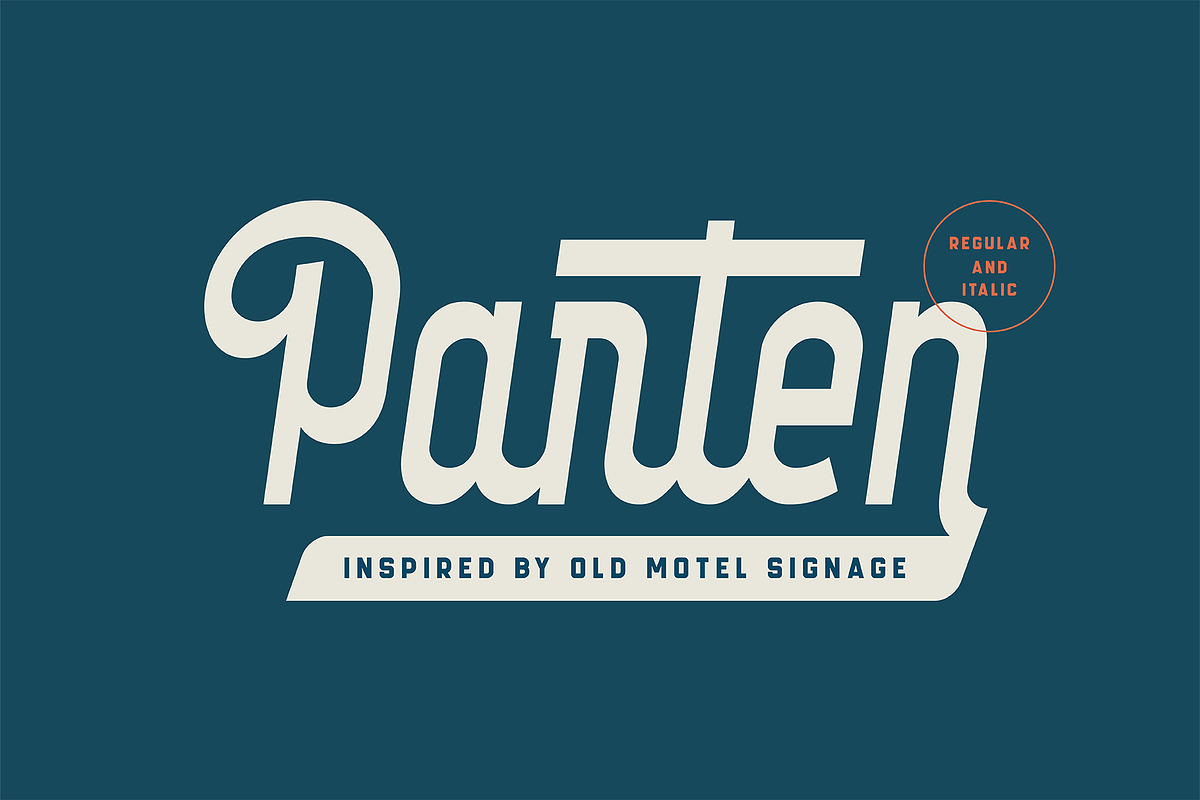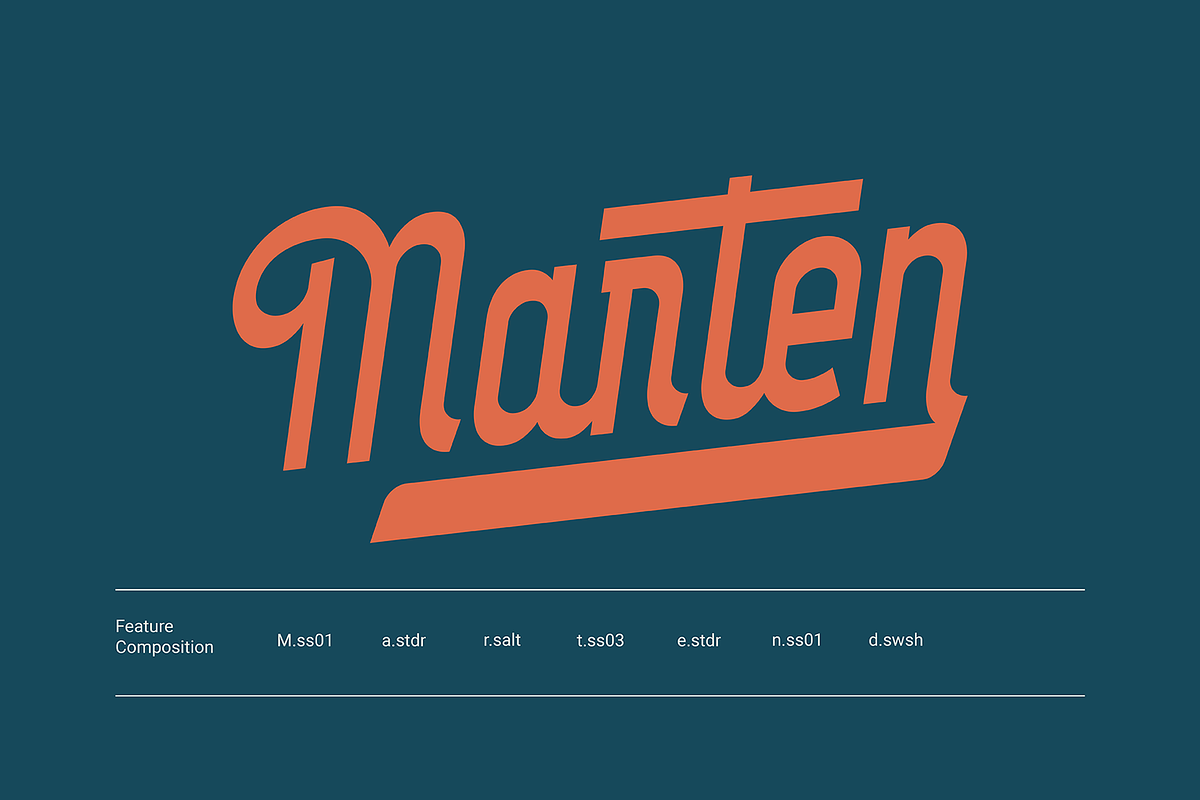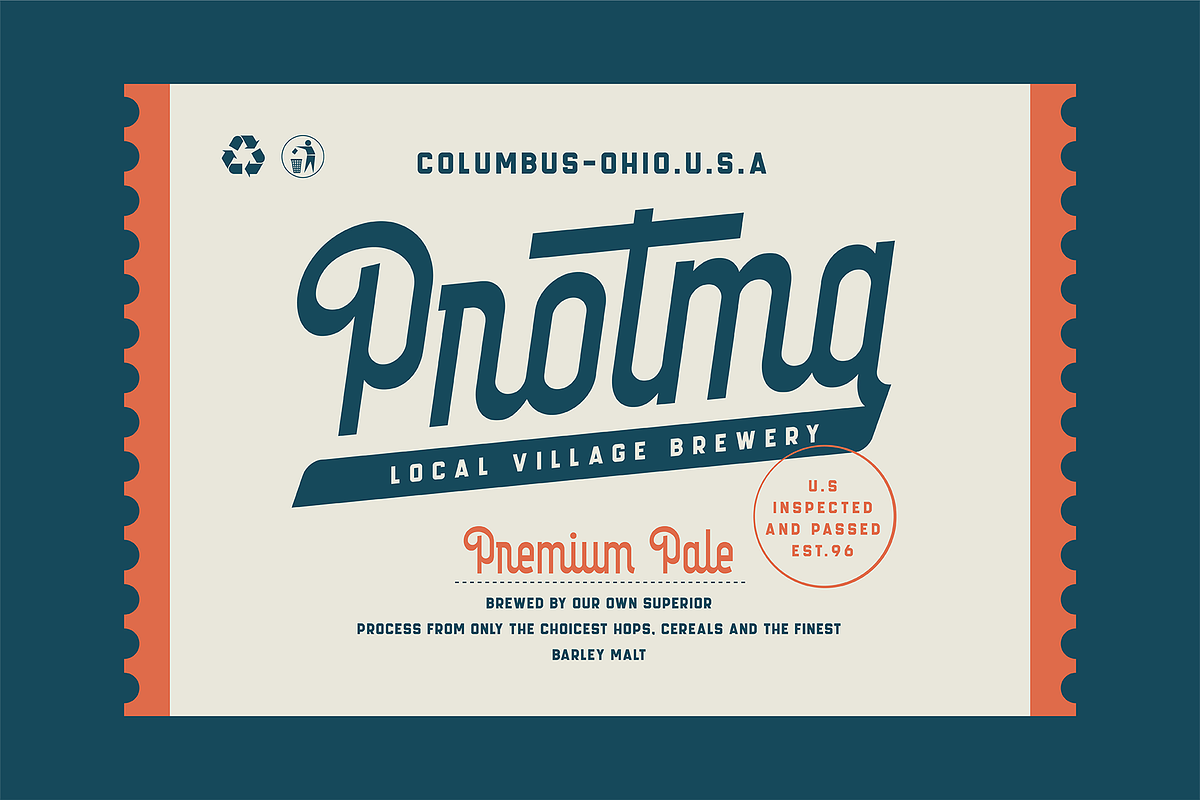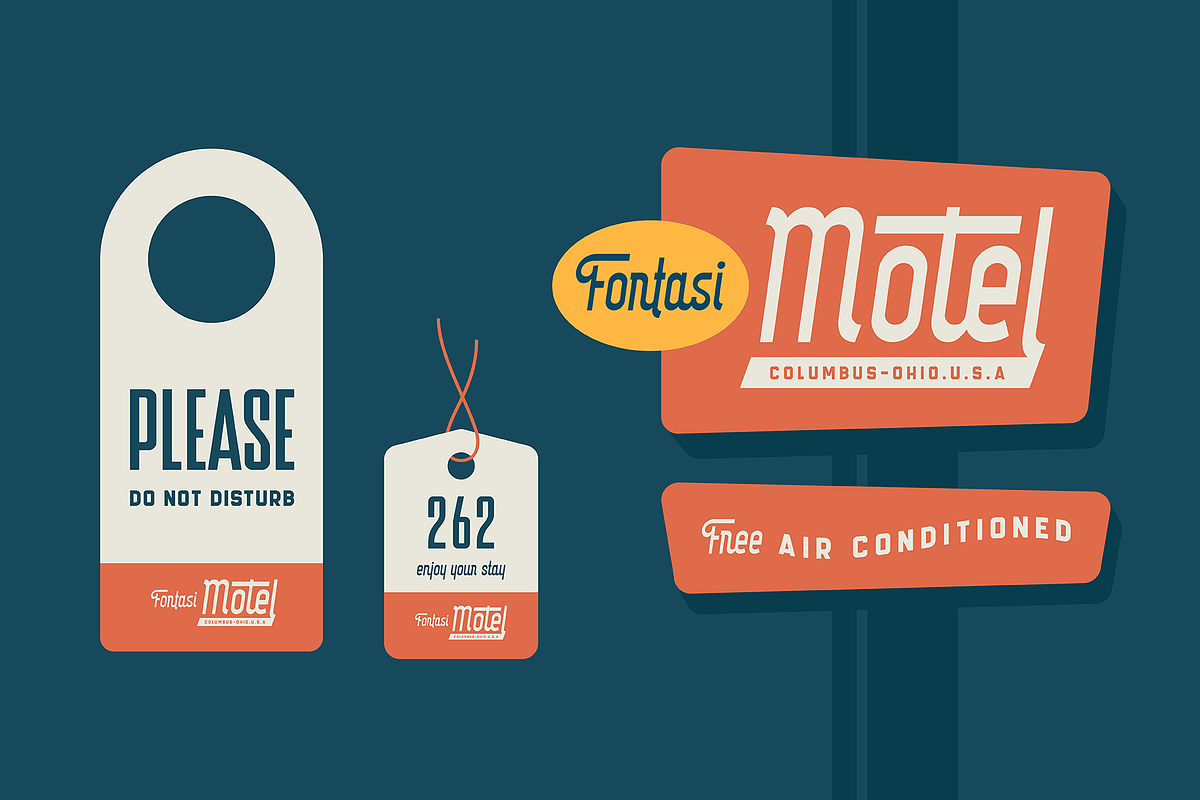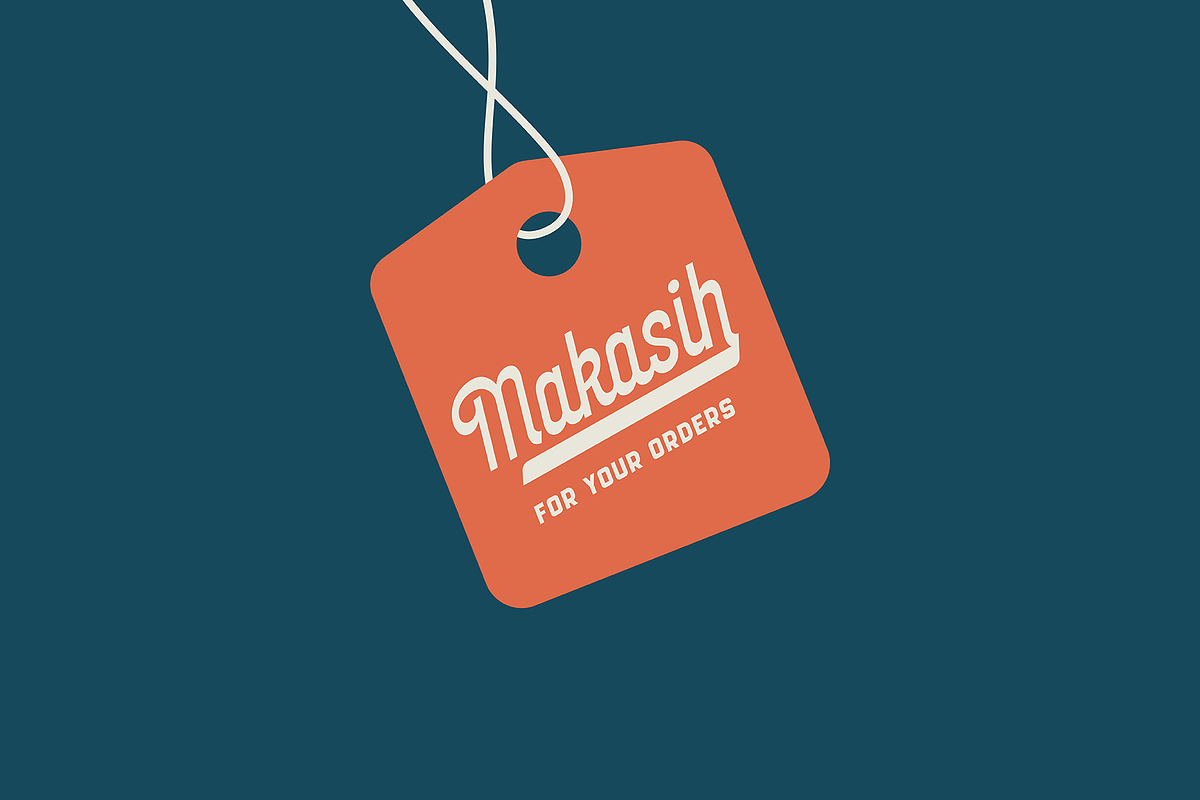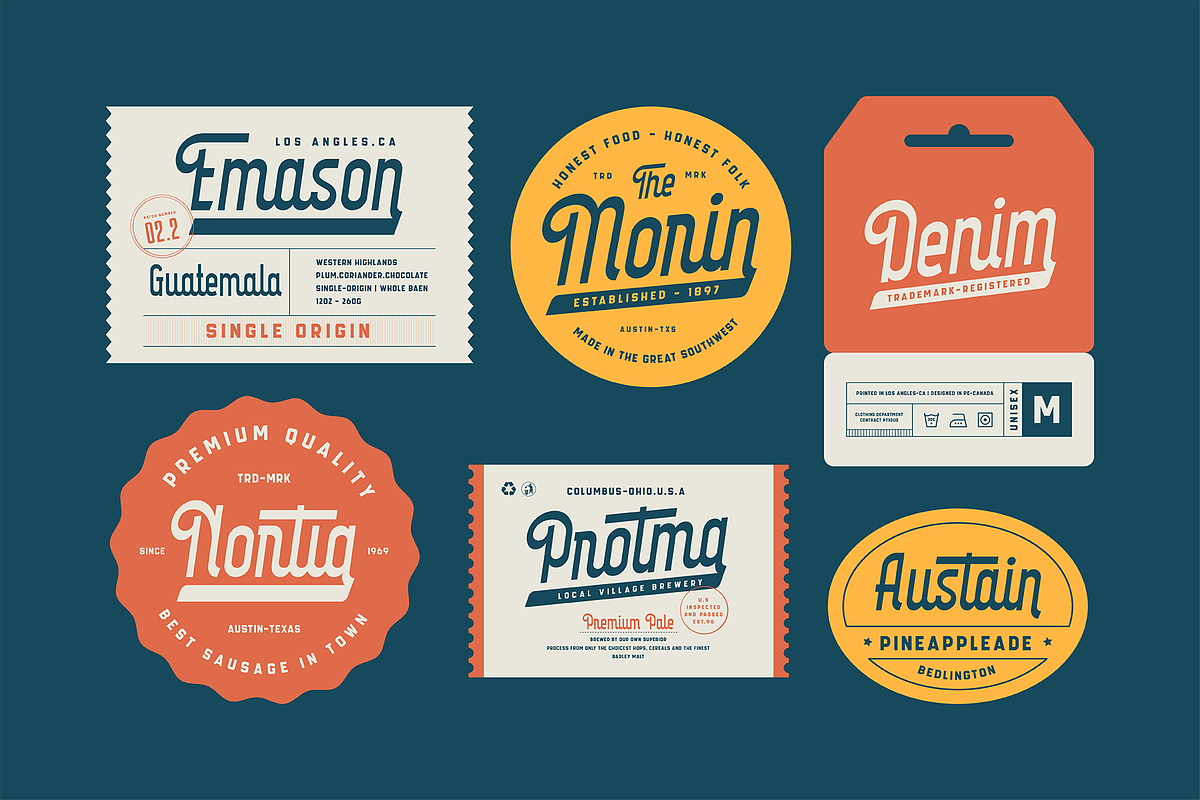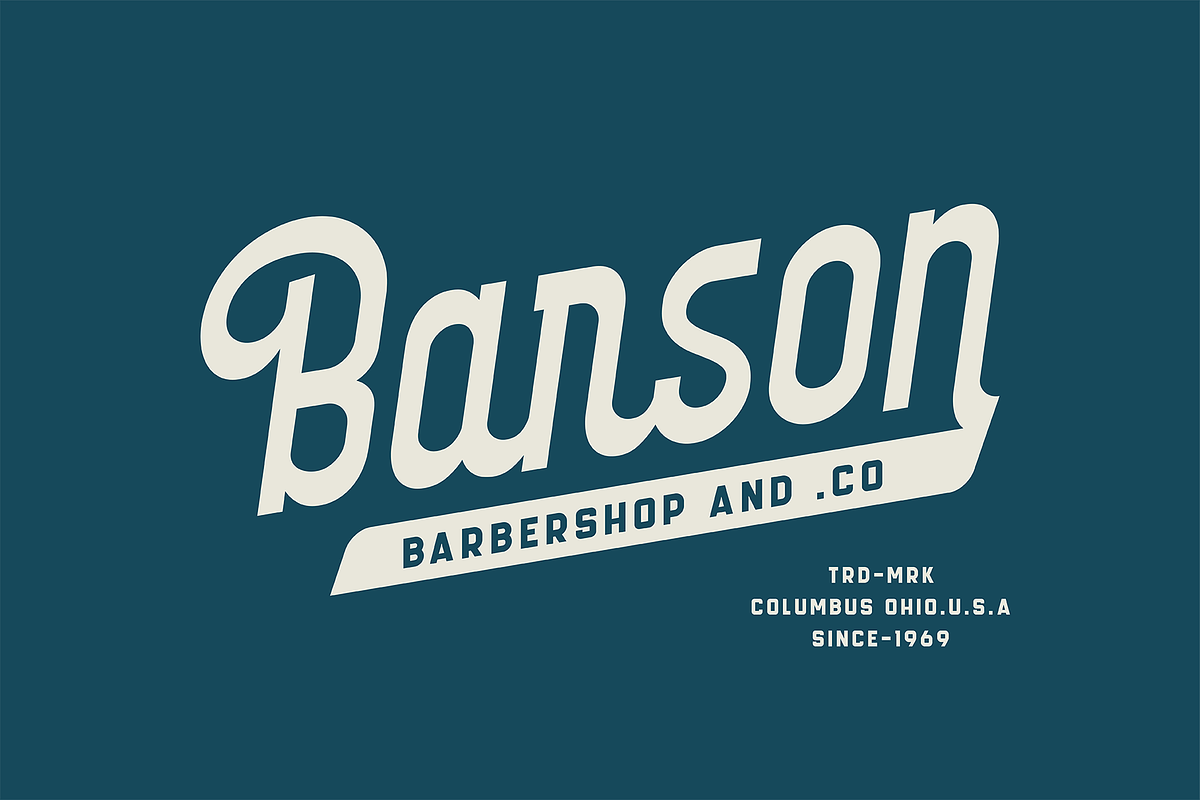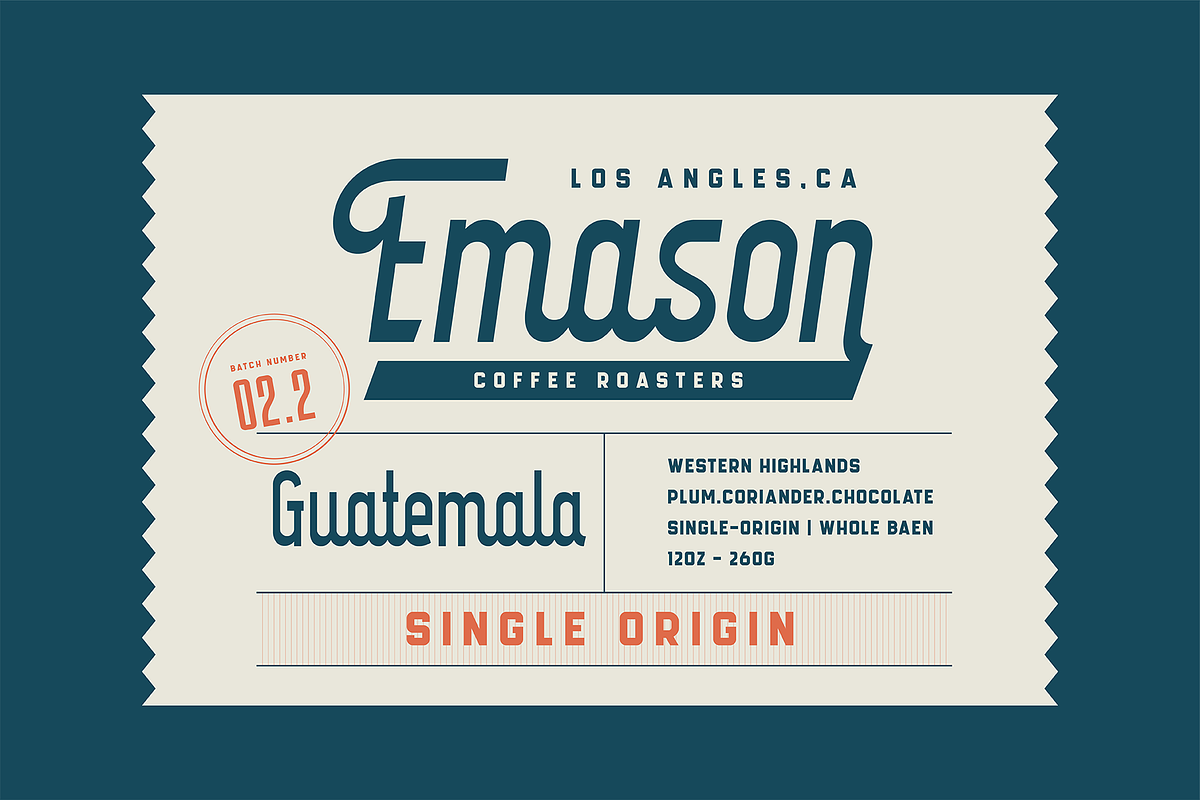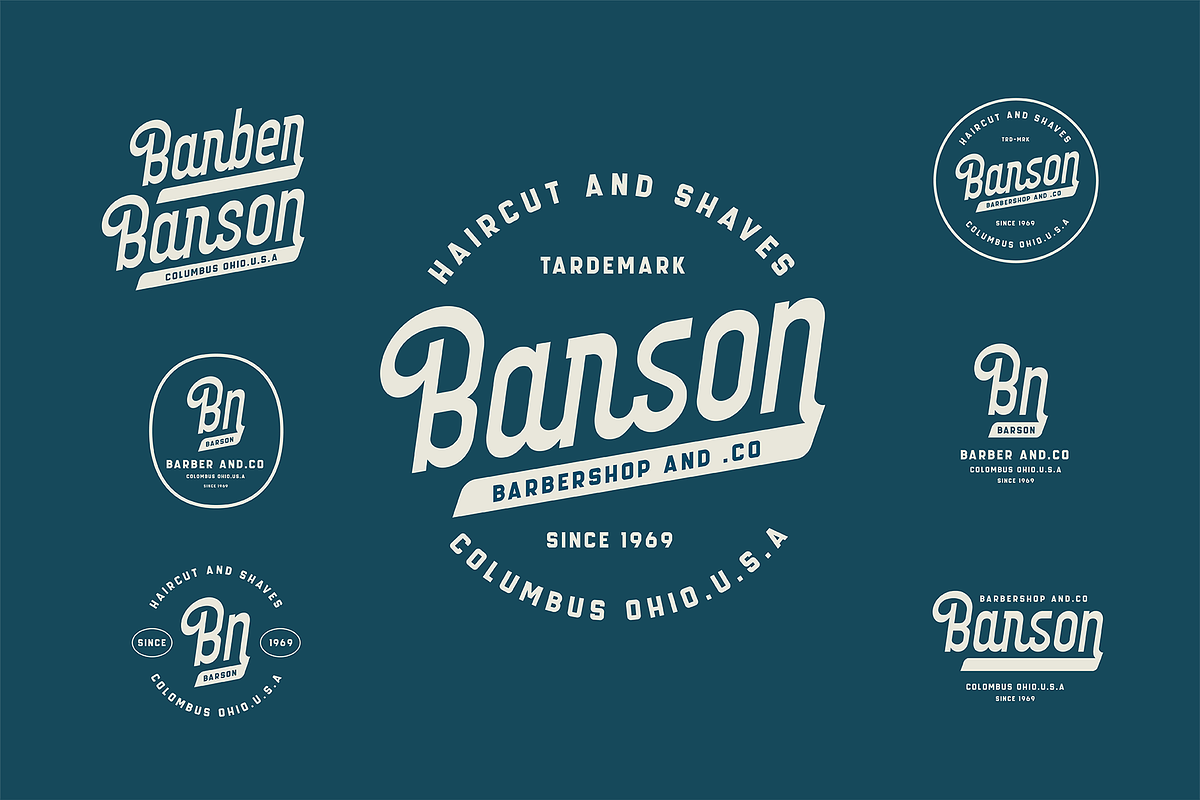
Parten
Parten a typeface inspired by old motel signage. Available in two styles Regular and italic with alternative characters such as Stylistic Alternates, Stylistic Set, and Swash Variant. Parten very suitable to use on many of your design projects such as : Signage, Logotype, Headline, Packaging, and more.